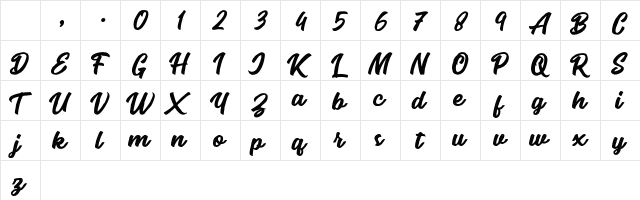
Seact Rough embraces imperfection - its rough, textured character adds raw authenticity to designs that want to feel lived-in and unconventional.
Pro Tip: Use Seact Rough at larger sizes where the texture and irregularity of each letterform can be clearly seen - it loses its character at small sizes.